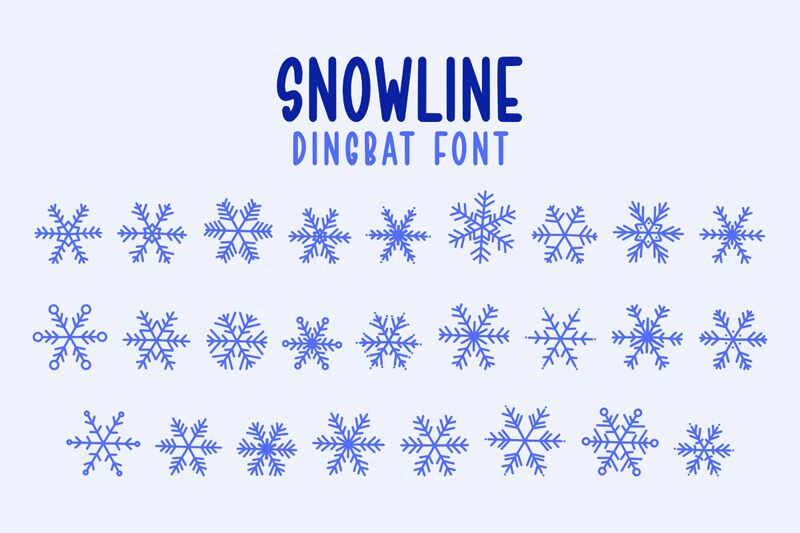
Snowline
Snowline, a stunning dingbat font designed by Muhammad Yafinuha, is the perfect choice for adding a touch of winter magic to your creative projects. With intricate snowflake designs, this unique font brings a sense of elegance and whimsy to any design. Whether you're creating holiday cards, seasonal marketing materials, or winter-themed illustrations, Snowline offers endless possibilities for adding a festive flair.
Its delicate and detailed style makes it a standout choice for anyone looking to incorporate snowflakes into their designs. Embrace the beauty of the season with Snowline and let your creativity shine.